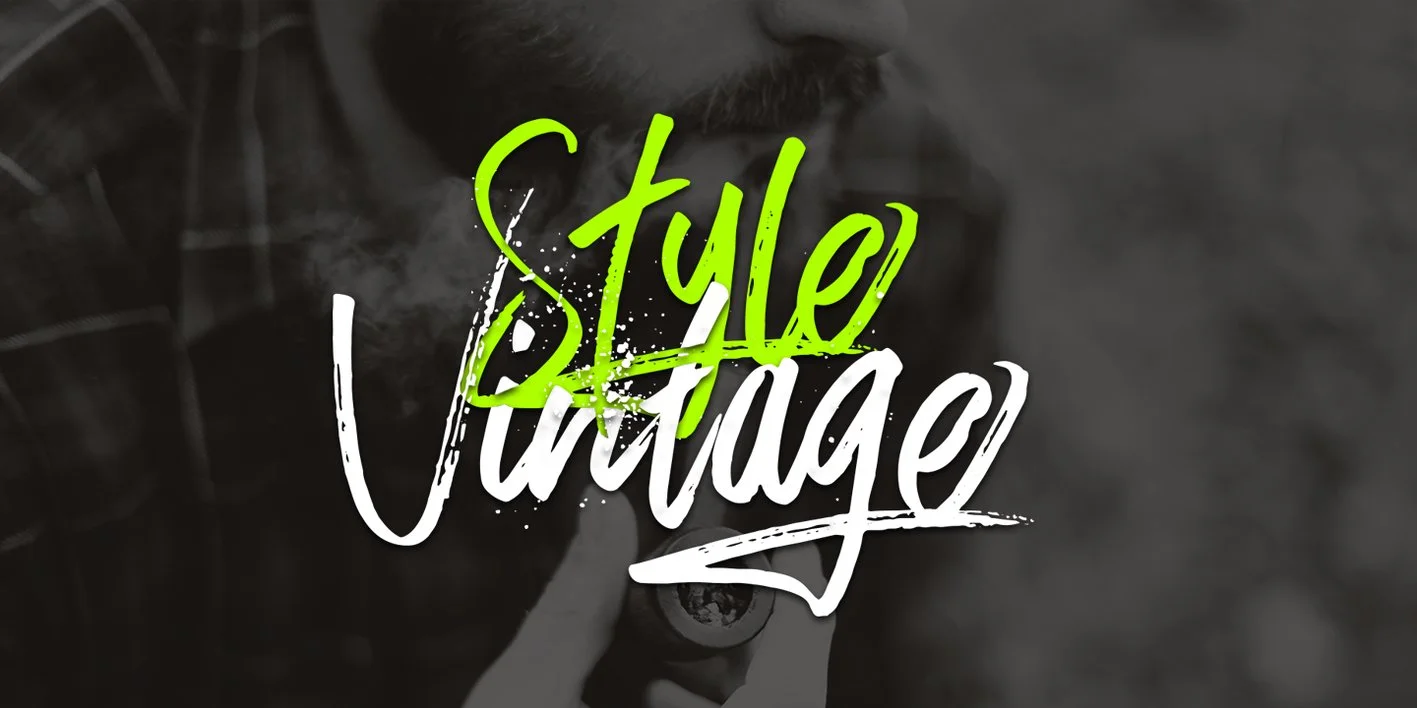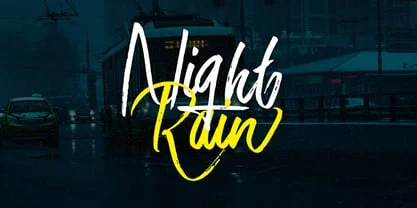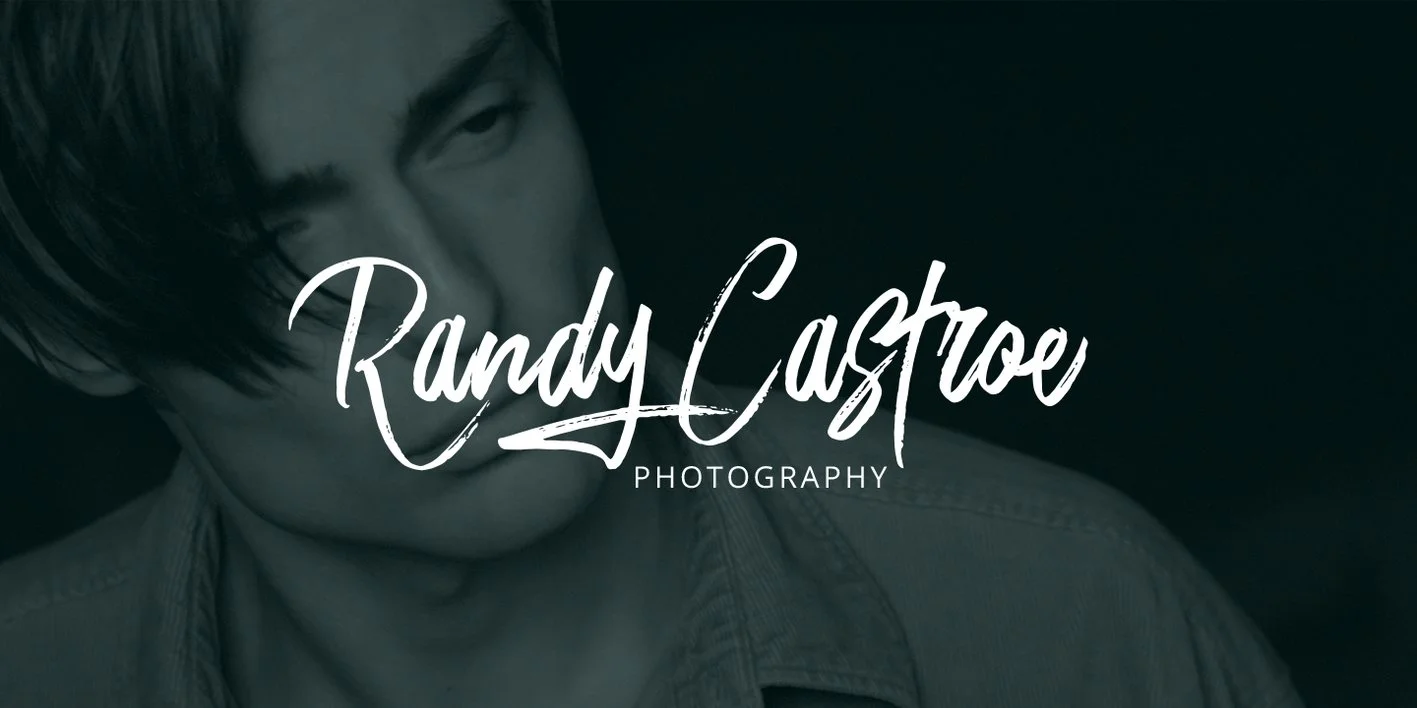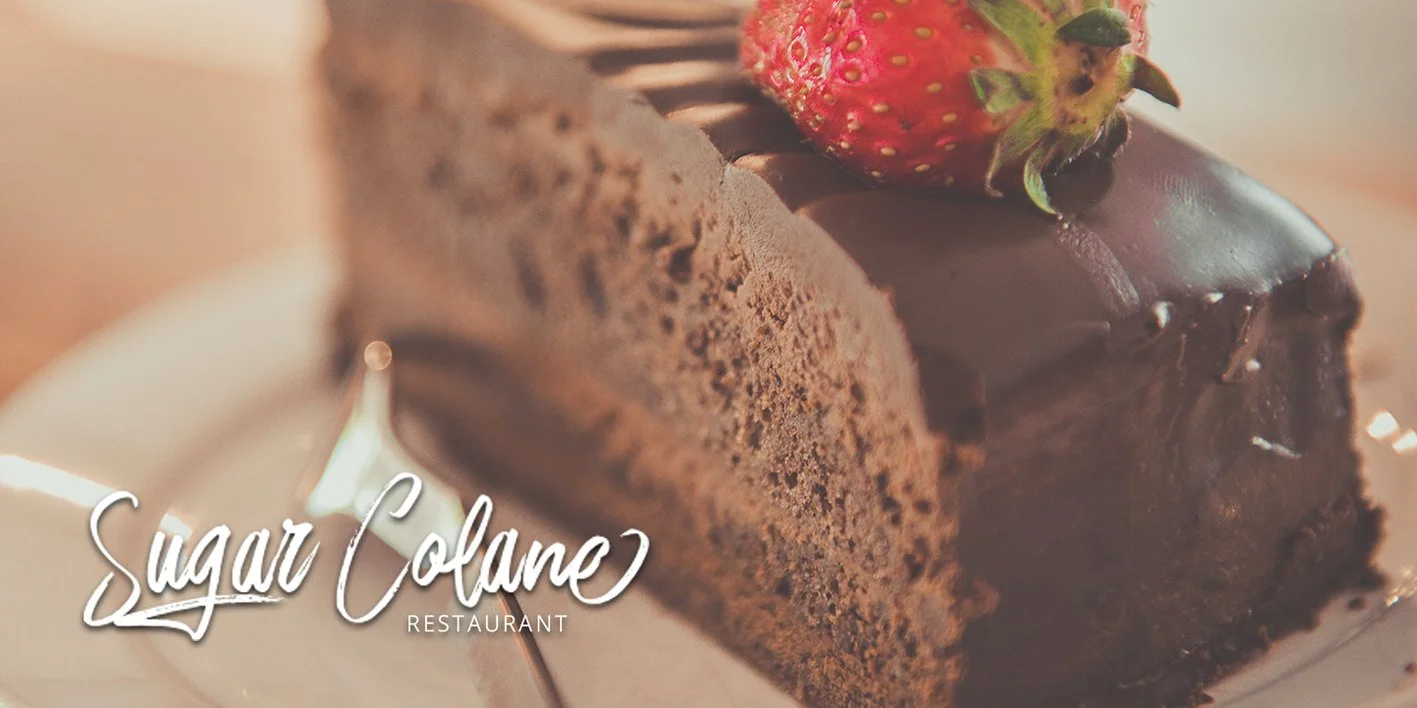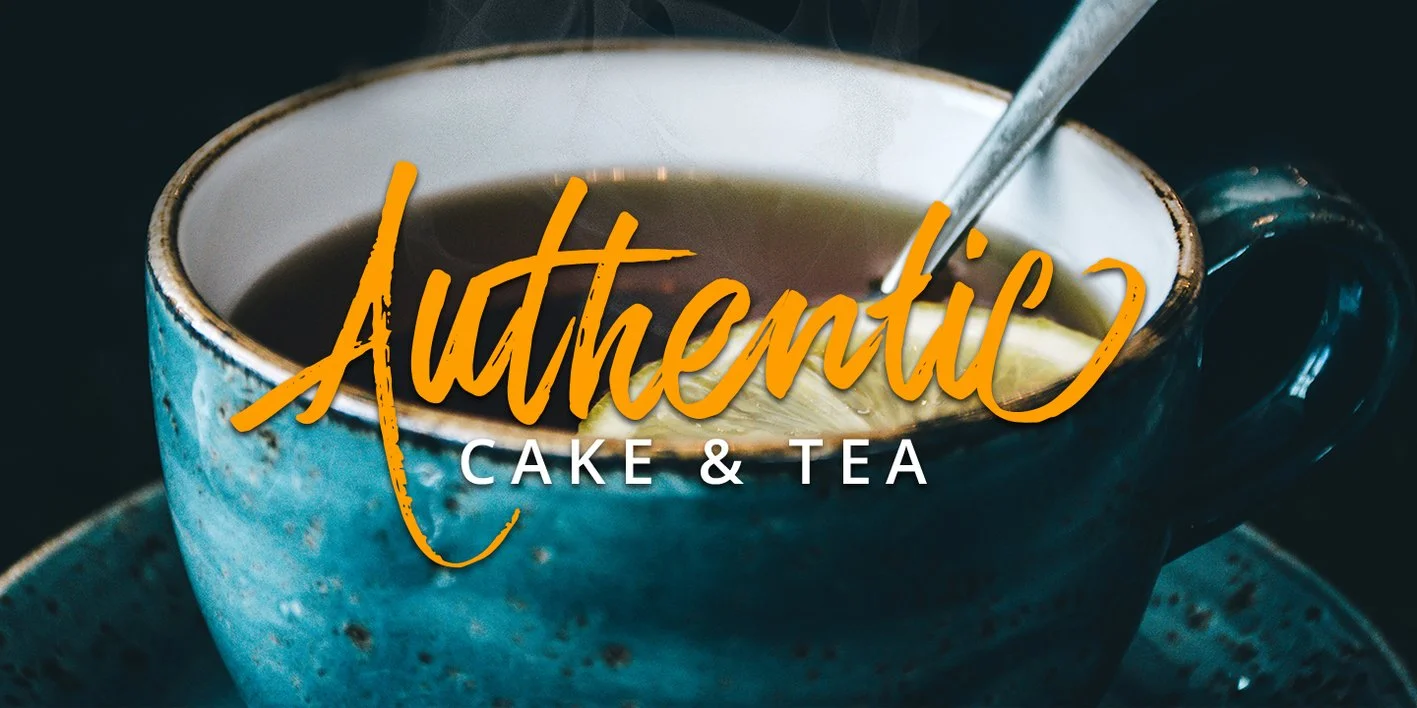
Rushtard Brush Font
A good typeface communicates tone before a single word is read. Rushtard Brush achieves this through distinctive character without sacrificing readability. The typeface brings a loose, expressive brush sensibility to a broad range of creative disciplines, with the kind of restraint that lets content lead that holds up whether the work is print-first or screen-first.
In practice, Rushtard Brush proves particularly effective for coffee shop menus, craft brewery labels, bohemian packaging, hand-lettered prints, logo design. Designers reaching for it find that the type decisions feel resolved rather than laboured — a useful quality when client timelines are tight.
The range of applications extends to environmental graphics, pottery studio branding, yoga studios, social media graphics. That breadth is deliberate: the proportions and spacing were stress-tested across a wide range of mock briefs before the typeface was finalised.
Stroke endings carry the authentic irregularity of a real bristle brush — no two terminals are mechanically identical. Baseline bounce and variable cap heights have been calibrated so the typeface reads as handcrafted without sacrificing alignment consistency.
Rushtard Brush sits comfortably alongside both classic and contemporary typefaces in multi-font hierarchies. It takes direction rather than competing for attention — a quality that experienced designers know is harder to find than it appears.
Art directors commissioning type-led campaigns find Rushtard Brush a reliable choice for projects that demand both personality and restraint. The design avoids the self-conscious quirkiness that dates quickly, settling instead for considered distinctiveness that holds up over time.